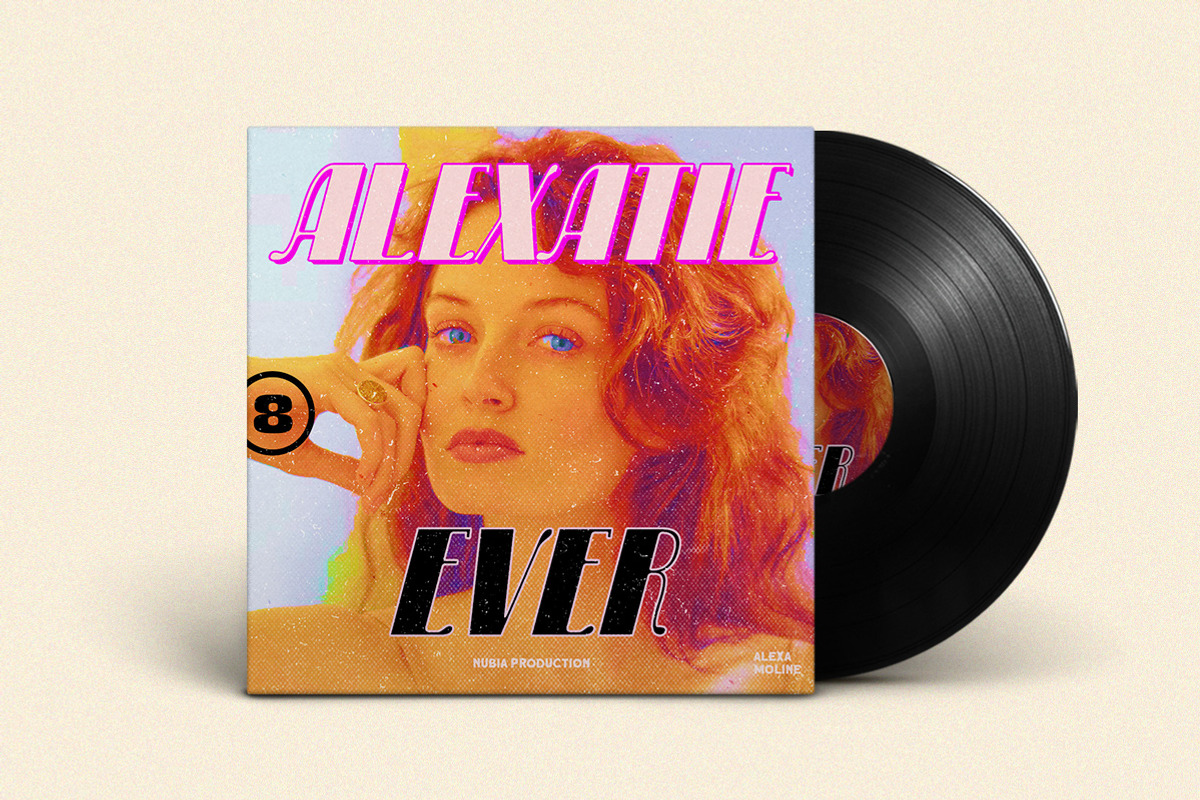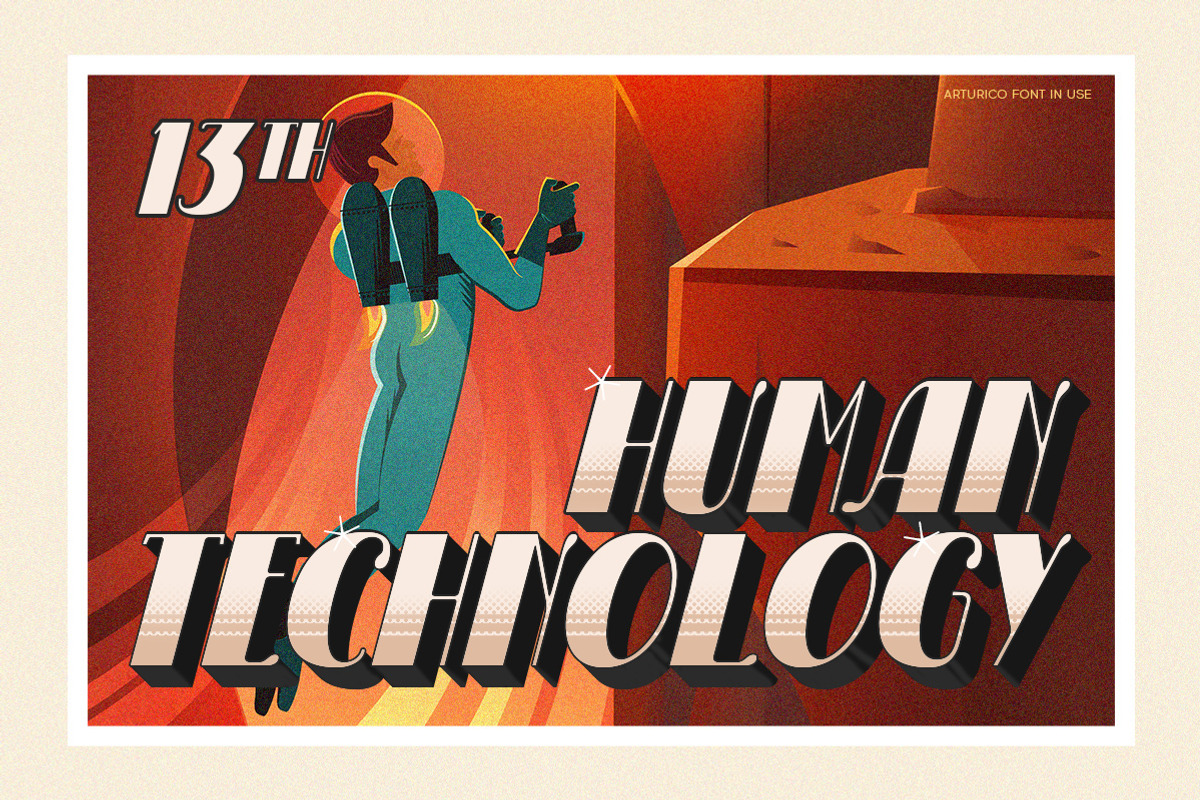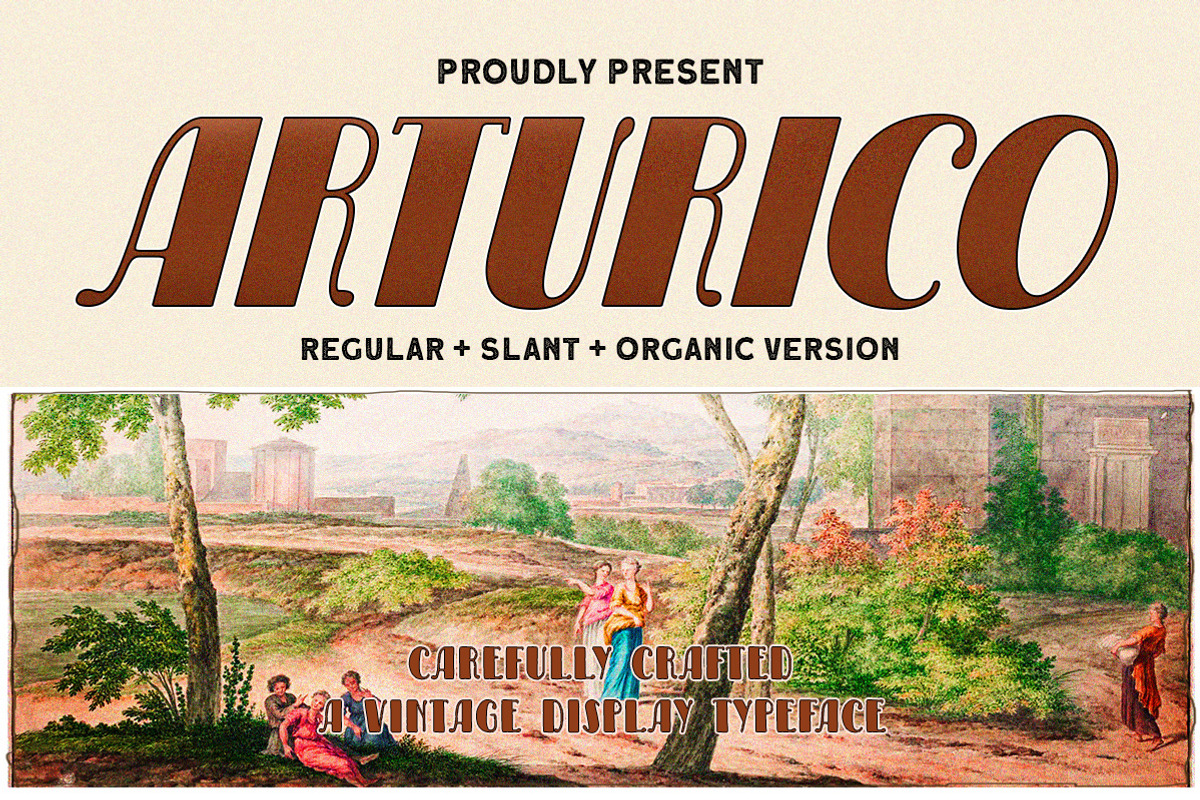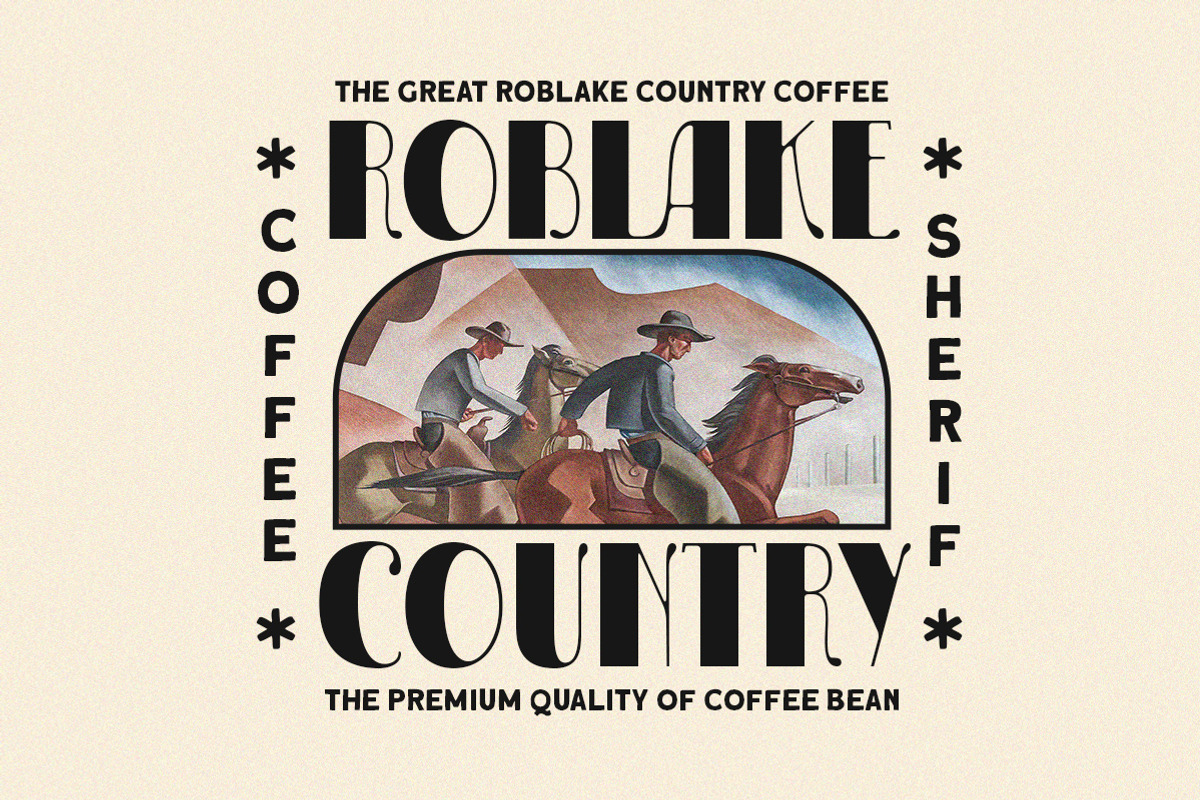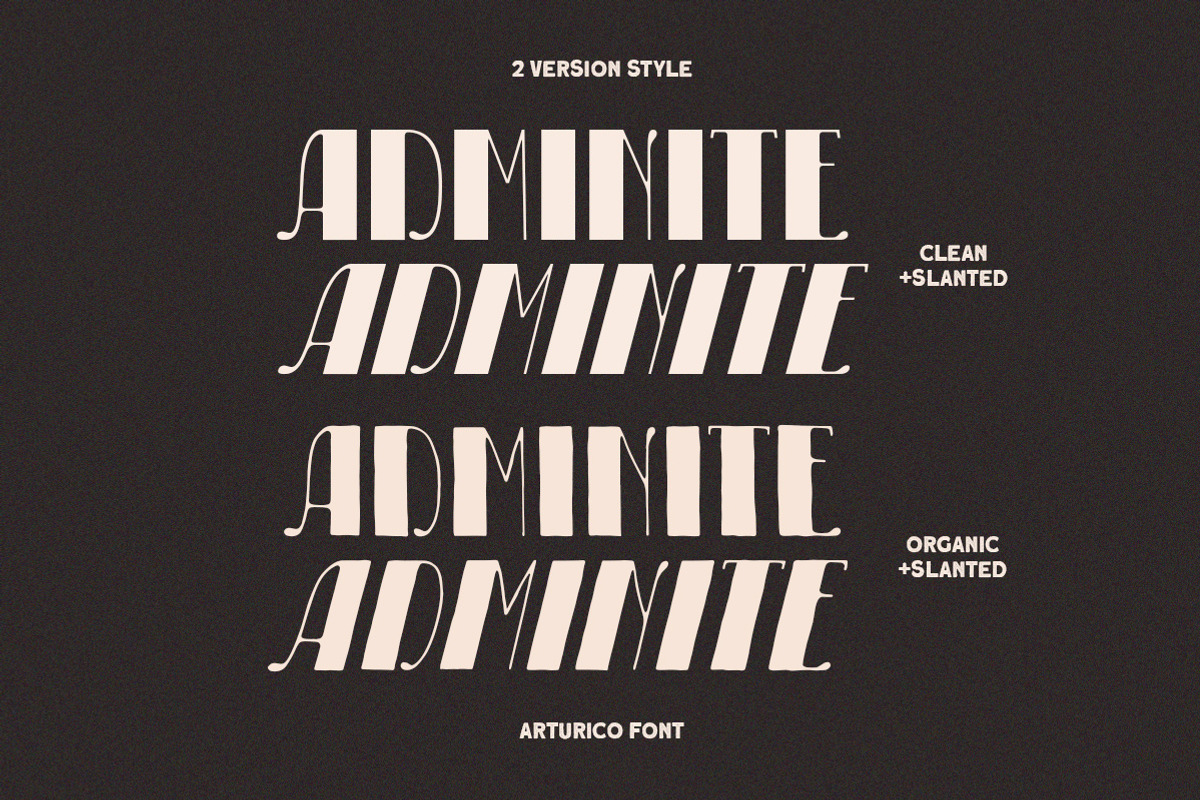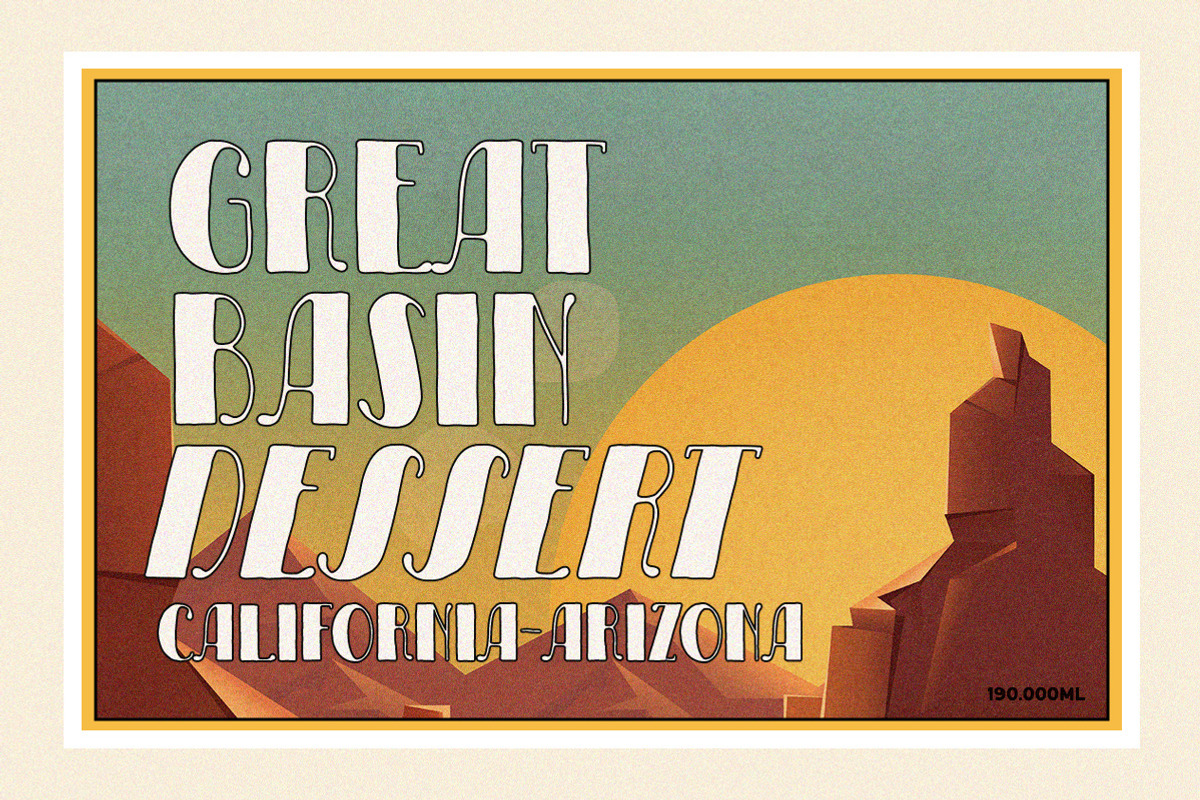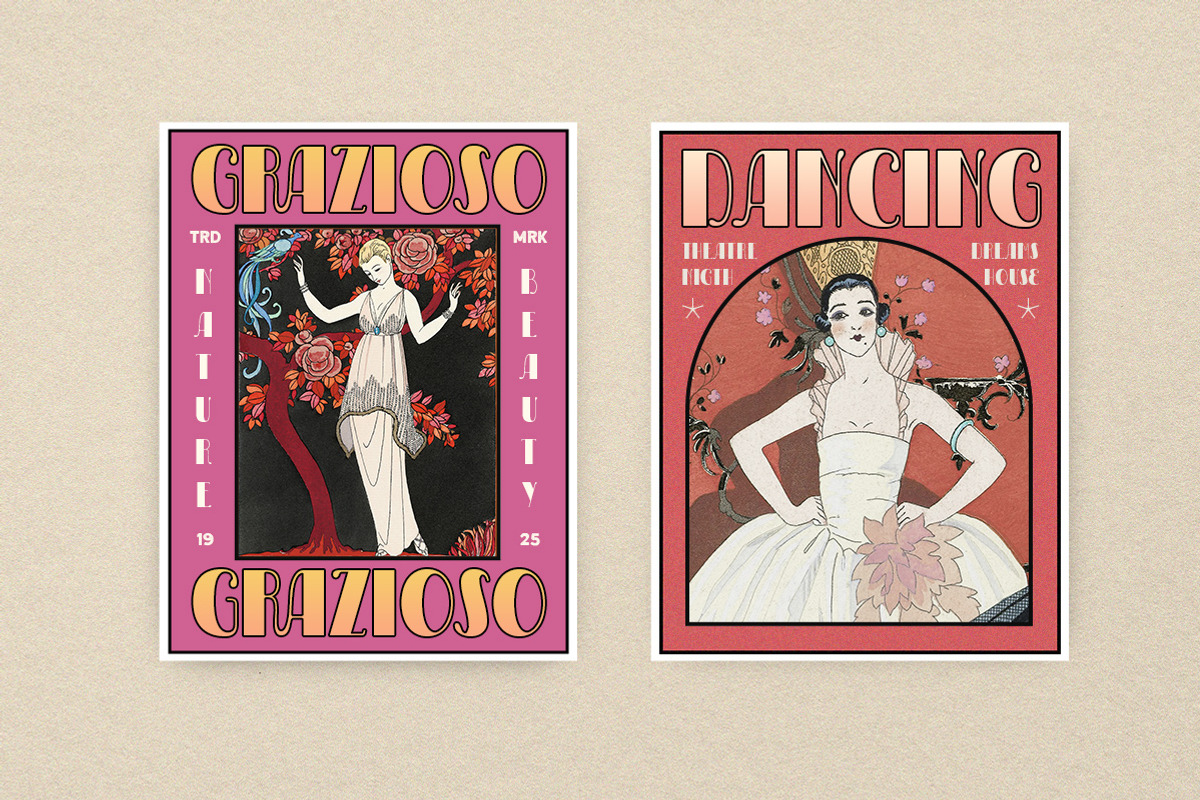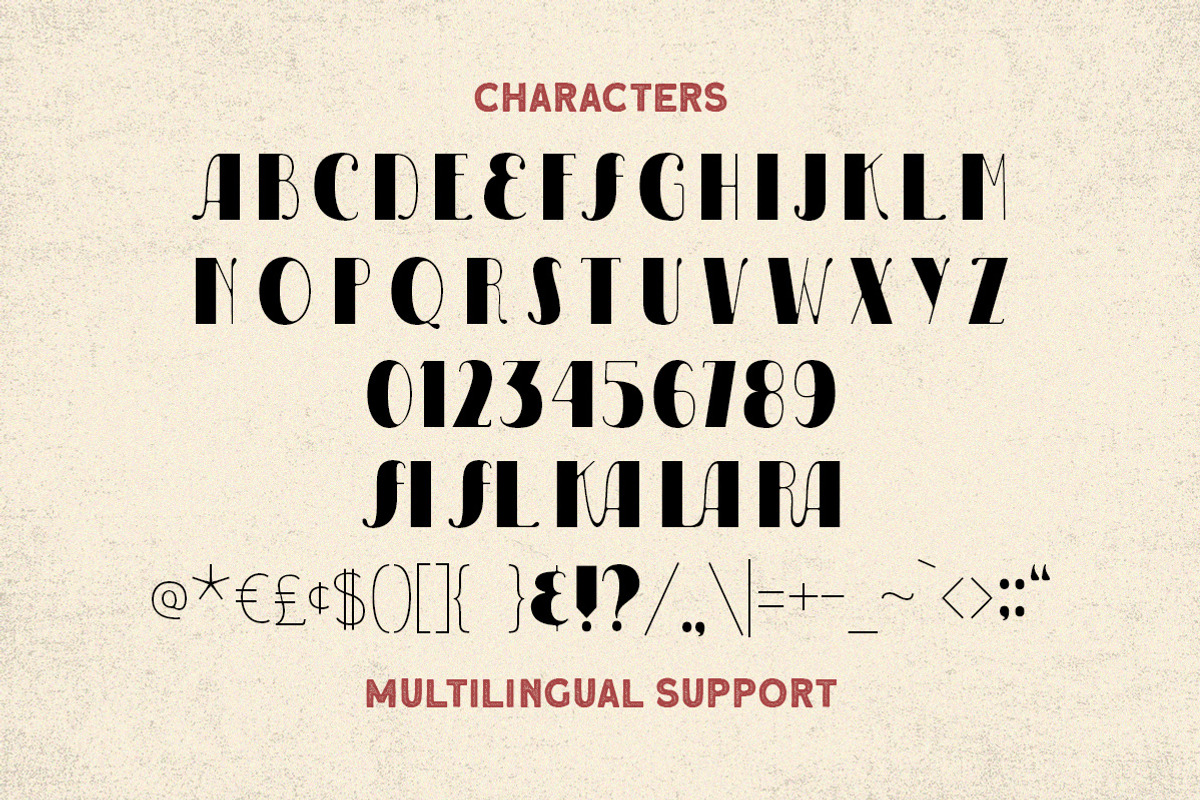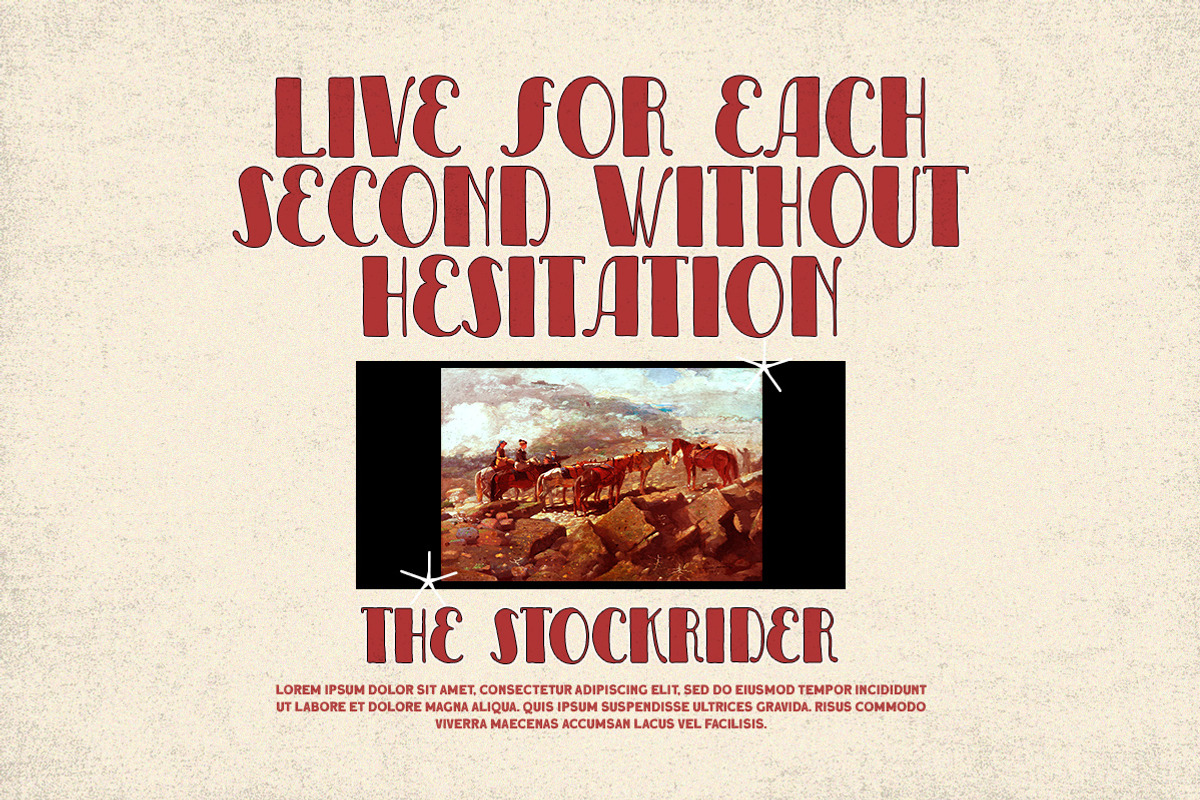
Arturico - Vintage Display
Arturico is a high contrast font with classy and classic look with vintage feel, inspired by 60s and 70s signages. This font perfectly made to be applied especially in logo, and the other various formal forms such as invitations, labels, logos, magazines, books, greeting / wedding cards, packaging, fashion, make up, stationery, novels, labels or any type of advertising purpose.
- multilingual & alternate